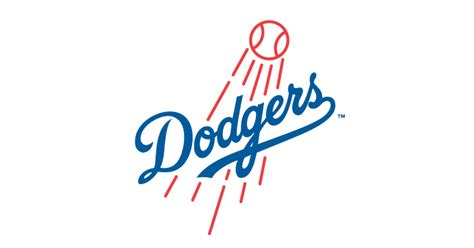
Dodgers Font: Copy & Paste Guide For Fans
Hey there, Dodgers fans! Ever wanted to sprinkle a little bit of that Dodger blue magic into your digital life? Whether you’re crafting social media posts, designing fan art, or just want your text to scream, “I bleed Dodger blue!”, knowing how to access and use the iconic Dodgers font is key. This guide is all about getting you up to speed on how to snag that font, use it, and where to find cool resources. Let’s dive in!
Understanding the Dodgers Font
Diving into the Dodgers font , it’s essential to recognize that the official font is a proprietary asset, meaning it’s usually licensed and not freely available for download. This is quite common with professional sports teams. Their branding is super important, and they want to maintain control over how it’s used. So, while you might not find an exact, free-to-download version, there are definitely ways to achieve a similar look! Understanding the nuances of the Dodgers font helps in finding suitable alternatives. Officially, the Dodgers use a specific typeface that embodies their historical aesthetic and brand identity. This font is carefully chosen to reflect the team’s heritage, evoke feelings of nostalgia, and maintain a consistent visual presence across all their media, from jerseys to marketing materials. Because of its proprietary nature, gaining direct access to the official Dodgers font usually involves licensing agreements with Major League Baseball or the Dodgers organization itself, which can be a complex and costly process. However, fear not, fellow fans! There are creative workarounds and similar-looking fonts that can help you capture the essence of the Dodgers’ visual style without running into legal issues. Knowing what makes the Dodgers font unique – its weight, letterforms, and overall style – will guide you in selecting the best substitutes for your projects. Plus, there are tons of online tools and resources where creative designers have already done the hard work, offering fan-made fonts inspired by the Dodgers. These resources can be a treasure trove for personal projects, allowing you to show your team spirit while respecting copyright boundaries. So, while you might not be able to copy and paste the official font directly, understanding its characteristics opens the door to a world of creative possibilities!
Finding Similar Fonts
Alright, so you can’t just copy and paste the official Dodgers font, but don’t let that strike you out! The good news is that there are fonts out there that capture a similar vibe. When searching, think about keywords like “athletic fonts,” “varsity fonts,” or “block fonts.” These often mimic the strong, bold, and classic look of many sports teams, including our beloved Dodgers. Websites like Dafont, Fontspace, and Google Fonts are fantastic places to start your search. These sites offer a huge selection of fonts, many of them free for personal use. Just type in those keywords, and you’ll find a bunch of options that could work. Look for fonts with thick, uniform strokes and a slightly condensed appearance – these usually come closest to the Dodgers’ style. Also, pay attention to the serifs (or lack thereof). The Dodgers font typically has a clean, sans-serif look, so stick to those. Once you’ve found a few that you like, download them and install them on your computer. Then, you can use them in your favorite design programs like Photoshop, Illustrator, or even just Microsoft Word. Experiment with different sizes and weights to get the exact look you’re after. And hey, don’t be afraid to mix and match! Sometimes layering different fonts can create a unique and eye-catching effect. The most important thing is to have fun and let your creativity shine. After all, being a Dodgers fan is all about passion and dedication, so show that off in your designs!
Step-by-Step Guide to Using Font Alternatives
Copy and Paste Considerations
So, when we talk about “copy and paste,” it’s important to understand what’s actually happening. You can’t just copy the style of a font and paste it into another application if that application doesn’t have the font installed. What you can do is copy and paste text that’s already formatted in a particular font within an application that recognizes that font. For example, if you’re working in Microsoft Word and you’ve applied your Dodgers-esque font to a piece of text, you can copy and paste that text within Word, and the formatting (including the font) will be preserved. However, if you try to paste that same text into, say, a plain text editor like Notepad, the formatting will be lost, and you’ll just get the raw text. The same goes for copying text from a website. If a website uses a specific font, you can copy the text, but unless you have that font installed on your computer, you won’t see it displayed correctly in your document or design. This is why it’s so important to actually install the font file on your system. Once the font is installed, any application that uses system fonts will be able to recognize and display it. So, the next time you’re trying to copy and paste text with a specific font, remember that the font needs to be installed on both the source and destination systems for it to work correctly. Otherwise, you’ll just end up with plain text that you’ll need to reformat. Understanding this simple concept can save you a lot of frustration and ensure that your Dodgers-inspired designs look exactly the way you want them to!
Additional Resources and Inspiration
Looking for more Dodgers font inspiration and resources? The internet is your friend! Check out fan forums and social media groups dedicated to the Dodgers. These communities often share tips, tricks, and resources for creating awesome fan content. You might find other fans who have already created Dodgers-inspired fonts or graphics that you can use as a starting point. Also, don’t underestimate the power of Pinterest and other visual discovery platforms. Search for “Dodgers fan art” or “Dodgers design” and you’ll find tons of examples of how other people have used fonts, colors, and imagery to celebrate the team. Pay attention to the fonts they’re using and see if you can identify similar ones. Another great resource is Behance and Dribbble, which are online communities for designers. Search for Dodgers-related projects and see how professional designers are using typography to create visually appealing content. You might even find some freebies or resources that you can download and use in your own projects. And of course, don’t forget to check out the official Dodgers website and social media channels. While they may not give away their official font, you can still get a good sense of their branding and visual style, which can inform your own designs. Finally, remember that practice makes perfect. The more you experiment with different fonts, colors, and design techniques, the better you’ll become at creating stunning Dodgers-themed graphics. So, get out there, start exploring, and let your creativity shine! With a little bit of effort, you’ll be creating designs that would make even Vin Scully proud.
So there you have it, Dodgers faithful! While snagging the exact Dodgers font might be a challenge, there are plenty of ways to capture that classic look and show off your team pride. Get out there, find those similar fonts, and let your creativity flow! Go Dodgers!